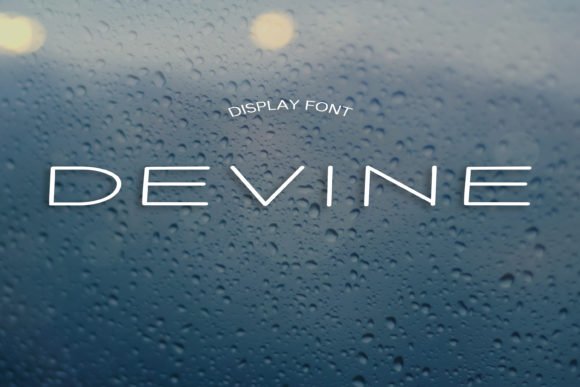
Unleashing Creativity with Devine Font
You know that moment when a spark of inspiration hits you, and you just can’t wait to bring your design idea to life? The rush of excitement, the thrill of creation – it’s a feeling like no other. And what’s even more thrilling is when you have the perfect tool to help you turn that idea into a stunning reality.
Enter Devine Font, a display font that feels incredibly light and modern, making it perfect for adding an extra touch of sophistication to your designs. Whether you’re working on a branding project, a packaging design, or a digital campaign, Devine Font is the perfect companion to help you elevate your creative vision. Its versatility and modern feel make it an invaluable asset for designers looking to create standout designs that grab attention.
Devine Font Key Features
- Font Family: Devine Font is a modern sans-serif font family, suitable for digital and print media.
- Font Sizes: Available in 6 different font weights: Thin (100), Light (300), Regular (400), Medium (500), Bold (700), and Black (900).
- Unique Characteristics: Devine Font features a clean and minimalist design, with a focus on legibility and readability in digital environments.
- Character Set: Supports a wide range of languages, including Latin, Cyrillic, and Greek alphabets, as well as various diacritical marks and symbols.
Review of Devine Font
Overall, I’m quite pleased with the Devine Font and I think it’s a great addition to any design project. Here’s what works well:
- ✨ Unique style: The Devine Font has a distinctive, elegant feel that sets it apart from more common fonts.
- ✨ High legibility: Even at smaller font sizes, the Devine Font remains clear and easy to read.
- ✨ Versatile: It works well for both body text and headings, making it a great choice for a wide range of applications.
- ⚠️ Limited character set: The Devine Font is not as comprehensive as some other fonts, with limited support for non-English languages and special characters.
- ⚠️ Not suitable for bold text: The Devine Font can become somewhat distorted when used for bold text, which may not be ideal for certain applications.
Overall, I think the Devine Font is a solid choice for designers who want a unique and elegant font for their projects. While it may not be perfect, its strengths make it well worth considering.
Tip: Use Divine Font for headings and titles to add a touch of elegance to your design.
Tip: Use Divine Font for logos and branding to create a consistent visual identity.
Tip: Use Divine Font for presentations and documents to add a touch of sophistication.
Divine Font is perfect for:
- Presentations and documents
- Editorials and magazines
Alternatives to “Divine Font” for Designers
Playfair Display is a luxurious serif font that exudes elegance and sophistication. It is ideal for use in high-end branding, magazine titles, and advertising campaigns where a touch of luxury is required.
Compared to Divine Font, Playfair Display has a more ornate and luxurious feel, making it suitable for high-end applications. While Divine Font has a more modern and sleek appearance, Playfair Display offers a more traditional and vintage aesthetic.
Great Vibes is a modern script font that conveys a sense of freedom and creativity. It is perfect for use in digital applications, such as social media graphics, blog posts, and advertising campaigns where a friendly and approachable tone is required.
Compared to Divine Font, Great Vibes has a more casual and relaxed feel, making it suitable for digital applications. While Divine Font has a more formal and structured appearance, Great Vibes offers a more playful and spontaneous aesthetic.
Carolyna Pro is a modern sans-serif font that is highly legible and versatile. It is ideal for use in digital applications, such as website typography, mobile apps, and advertising campaigns where a clean and modern look is required.
Compared to Divine Font, Carolyna Pro has a more modern and minimalist feel, making it suitable for digital applications. While Divine Font has a more elegant and sophisticated appearance, Carolyna Pro offers a more straightforward and functional aesthetic.